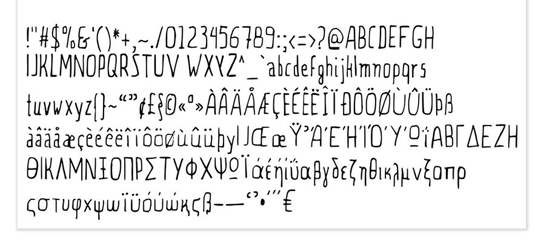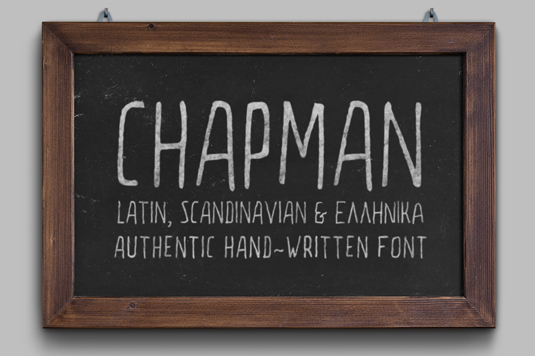
Font of the day: Chapman
Chapman by Elegrad
Chapman is a handwritten display font suitable for many print and digital projects, and is ideal for posters, display material, wedding invitations and artisan-style branding.